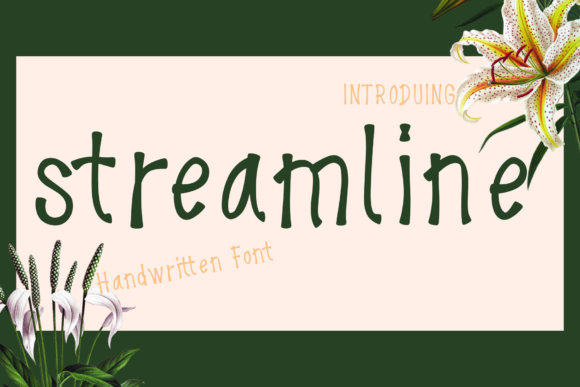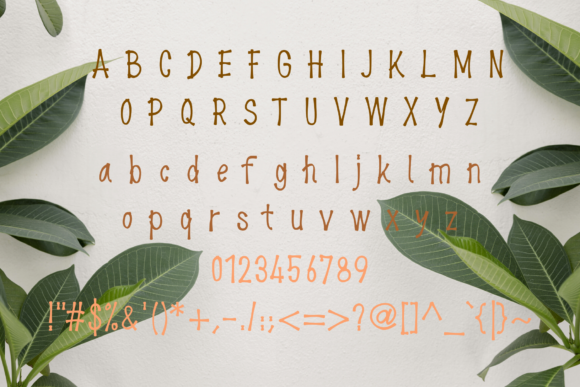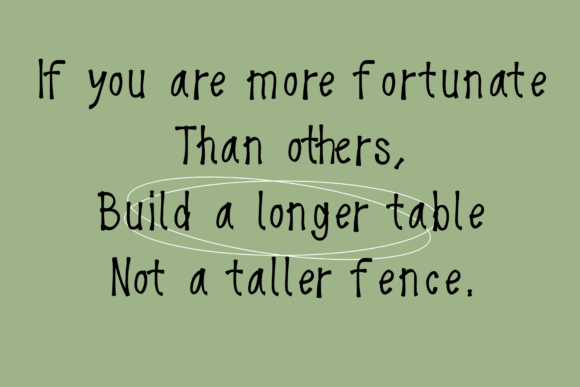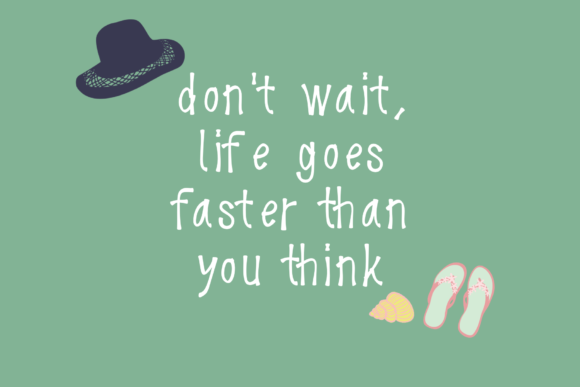
Streamline Font
About Streamline Font
Streamline is a cute and a bit quirky handwritten font. Its friendly and neat style makes this font fit for a wide range of designs!